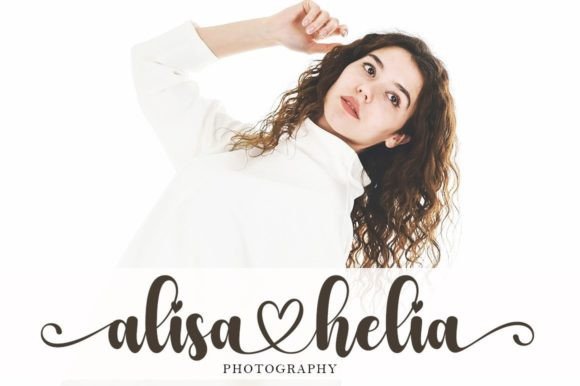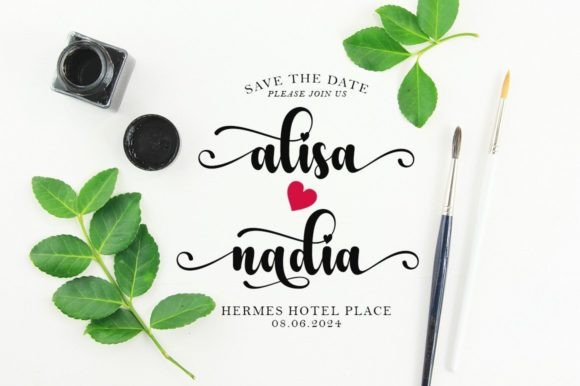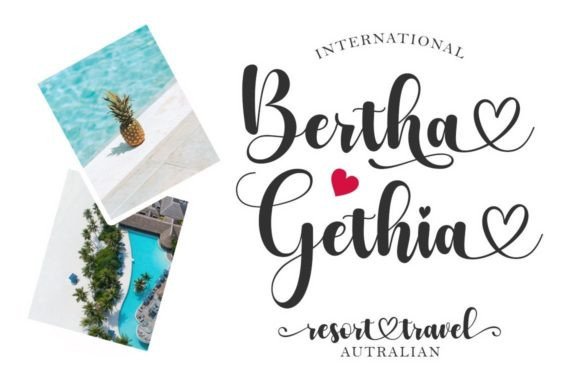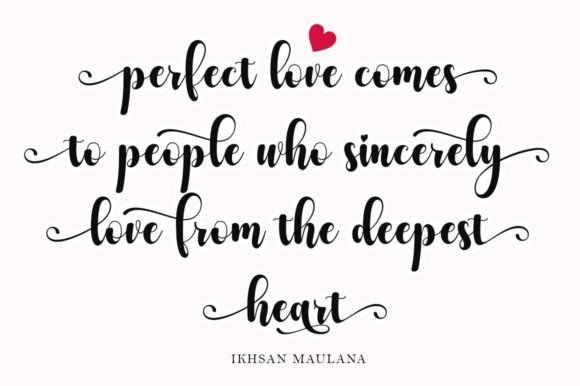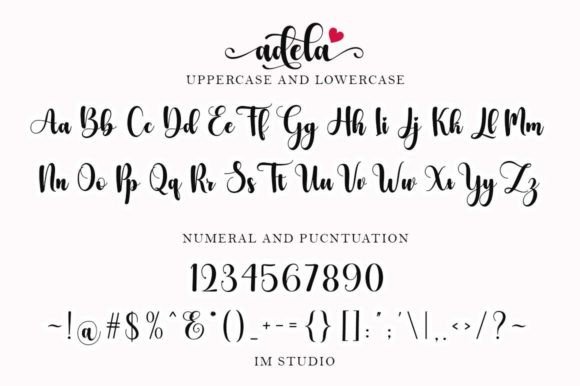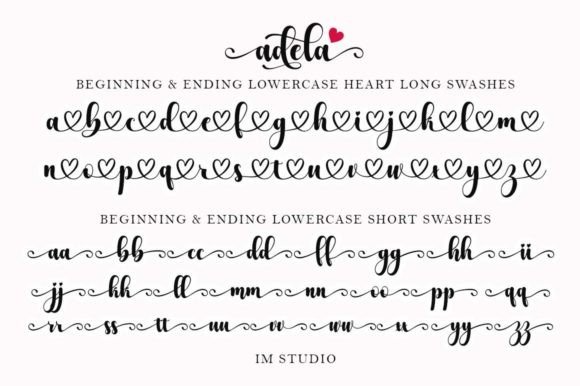
Introducing Adela Font: Elevate Your Designs with Elegance and Sophistication
In the world of typography, a font can make or break a design. It’s the foundation upon which the entire visual aesthetic is built. For designers and crafters seeking to add a touch of elegance and sophistication to their projects, look no further than Adela Font. This stunning script font is inspired by timeless classic calligraphy, yet boasts a contemporary atmosphere that’s sure to captivate audiences.
The Inspiration Behind Adela Font
Adela Font draws its inspiration from the art of traditional calligraphy, where the fluidity of handwriting meets the precision of typography. The result is a font that’s both classic and modern, exuding a sense of refinement and poise. Adela’s design is rooted in the principles of impeccable form, ensuring that every letter and stroke is meticulously crafted to create a harmonious visual experience.
What Sets Adela Font Apart
So, what makes Adela Font stand out from the crowd? For starters, its balanced and varied design ensures that it’s neither too thin nor too thick. This perfect sweet spot makes Adela incredibly versatile, suitable for a wide range of applications, from elegant wedding invitations and luxury branding to sophisticated editorial design and craft projects.
Adela’s contemporary atmosphere is another key factor that sets it apart. While it’s deeply rooted in traditional calligraphy, the font has been carefully crafted to feel fresh and modern. This makes it an excellent choice for designers looking to create stunning, high-end visuals that still feel current and on-trend.
Key Features of Adela Font
Adela Font boasts a range of features that make it an attractive choice for designers and crafters. Some of its key characteristics include:
- Elegant script design: Adela’s script font is designed to evoke the feeling of classic calligraphy, with flowing strokes and beautiful letterforms.
- Balanced and varied: The font’s balanced design ensures that it’s neither too thin nor too thick, making it perfect for a wide range of applications.
- Contemporary atmosphere: Adela’s modern take on traditional calligraphy ensures that it feels fresh and current.
- Impeccable form: Every letter and stroke has been meticulously crafted to create a harmonious visual experience.
Using Adela Font in Your Designs
Adela Font is incredibly versatile, making it suitable for a wide range of design applications. Here are just a few ideas to get you started:
- Wedding invitations and stationery: Adela’s elegant script font is perfect for creating stunning wedding invitations, save-the-dates, and other stationery.
- Luxury branding: Use Adela to create sophisticated branding materials, such as logos, business cards, and letterheads.
- Editorial design: Adela’s beautiful letterforms make it an excellent choice for editorial design, including magazines, newspapers, and books.
- Craft projects: Adela’s unique and elegant design makes it perfect for craft projects, such as handmade cards, scrapbooking, and DIY gifts.
| Font Name | Adela Font |
| Author | IM Studio |
In conclusion, Adela Font is a stunning script font that’s sure to elevate your designs to new heights. With its elegant design, balanced and varied strokes, and contemporary atmosphere, Adela is the perfect choice for designers and crafters seeking to add a touch of sophistication and elegance to their projects. Whether you’re working on a wedding invitation, luxury branding materials, or a craft project, Adela Font is sure to impress.